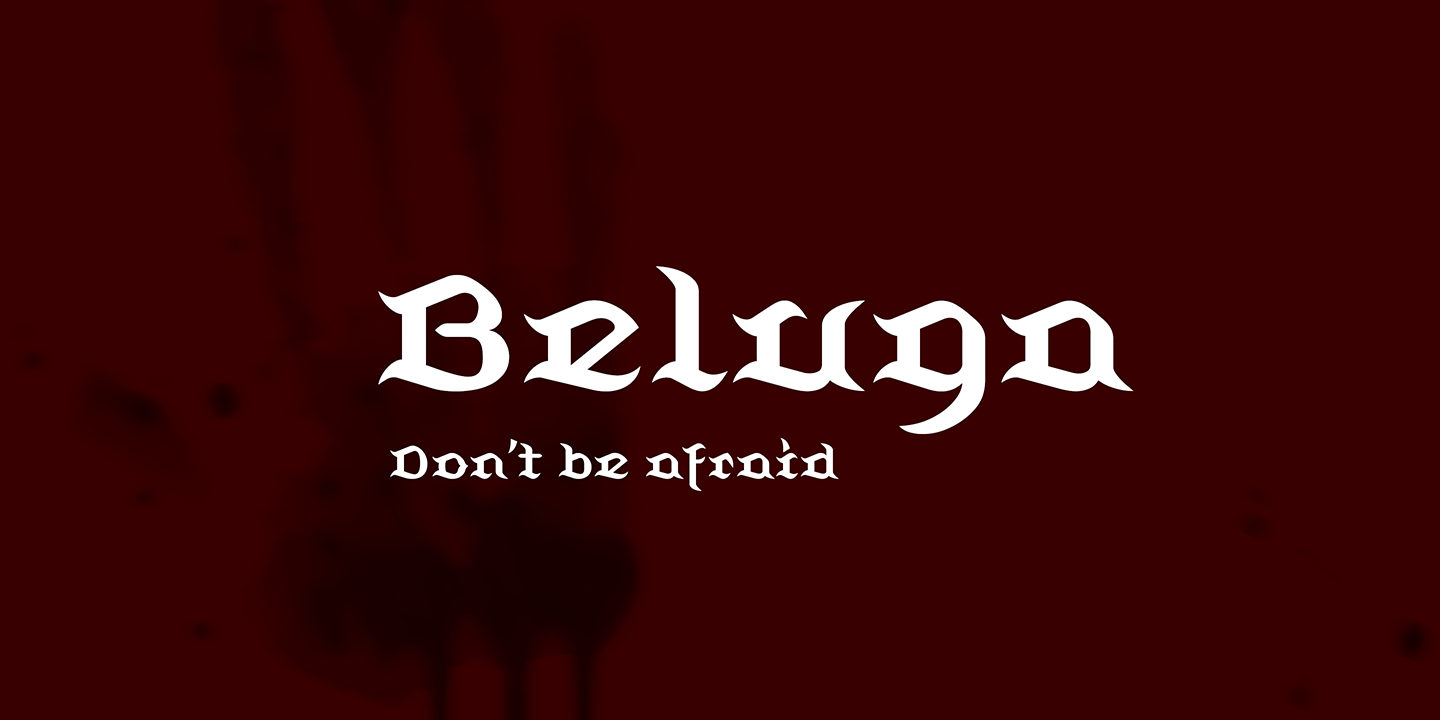
Beluga LT Font is ideal for marine conservation organizations, Arctic research institutes, ocean wildlife sanctuaries, aquarium educational displays, whale watching tour branding, marine biology publications, polar expedition documentaries, environmental awareness campaigns, oceanic research centers, Arctic tourism materials, marine photography studios, and underwater exploration projects. This majestic typeface brings oceanic grandeur to projects requiring marine sophistication and Arctic elegance.
What makes Beluga LT Font so exciting is its extraordinary ability to capture the gentle majesty and pristine beauty of Arctic marine life through gracefully flowing letterforms that embody the serene power and intelligent grace of beluga whales in their pristine Arctic habitat. The font features elegantly curved characters with smooth contours and peaceful proportions that mirror the fluid movement and gentle intelligence of these magnificent Arctic creatures. Its serene character conveys wisdom and environmental consciousness while maintaining excellent readability, making it perfect for organizations seeking to communicate marine conservation, Arctic preservation, and the profound beauty of ocean life with authentic marine sophistication.
The Beluga LT Font family includes multiple oceanic weights and Arctic-inspired variations that showcase its marine character while providing comprehensive design flexibility for various environmental and oceanic applications. Each variant maintains the original's graceful fluidity while offering extensive options for creating powerful typographic compositions that celebrate marine life and environmental stewardship.
Whether you're developing marine conservation identities, creating Arctic awareness materials, or designing oceanic communications, Beluga LT Font Free Download offers the perfect combination of marine authenticity and contemporary functionality. This exceptional typeface brings genuine Arctic elegance to design projects, making it an indispensable choice for designers seeking typography that effectively communicates marine conservation, environmental awareness, and the majestic beauty of Arctic ocean life with authentic oceanic grandeur.